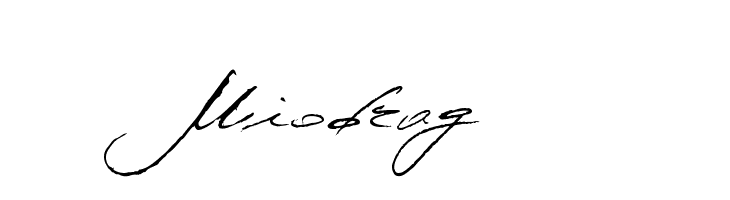
An elegant, flowing script font with classic calligraphy influences.
An elegant script font with graceful, flowing lines and delicate curves.
A lively and elegant script font with flowing, cursive letterforms.